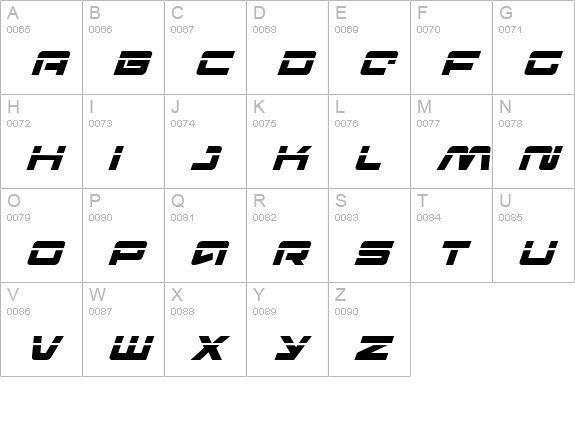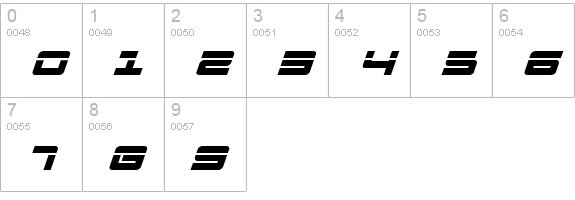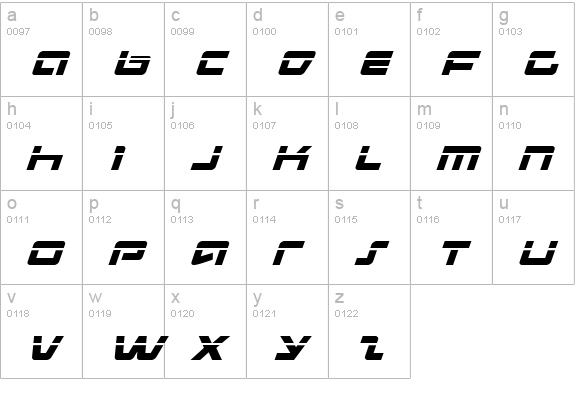
Pulse Rifle Laser Italic is a distinctive, italic variant in the Pulse typeface family \xE2\x80\x94 well suited to design and typography projects.
Introducing Pulse Rifle Laser Italic font, a dynamic and futuristic typeface that exudes energy and innovation. With sleek lines and a modern aesthetic, this font is perfect for projects that require a bold and attention-grabbing look. The italicized style adds a sense of movement and sophistication, making it ideal for headlines, branding, and digital designs. Best of all, Pulse Rifle Laser Italic font is available for free download at FontsMarket.com. Whether you're a designer looking to add a cutting-edge touch to your work or simply a font enthusiast seeking to expand your collection, this font is a must-have. Don't miss out on the opportunity to elevate your projects with the striking Pulse Rifle Laser Italic font. Download it today and watch your designs come to life!